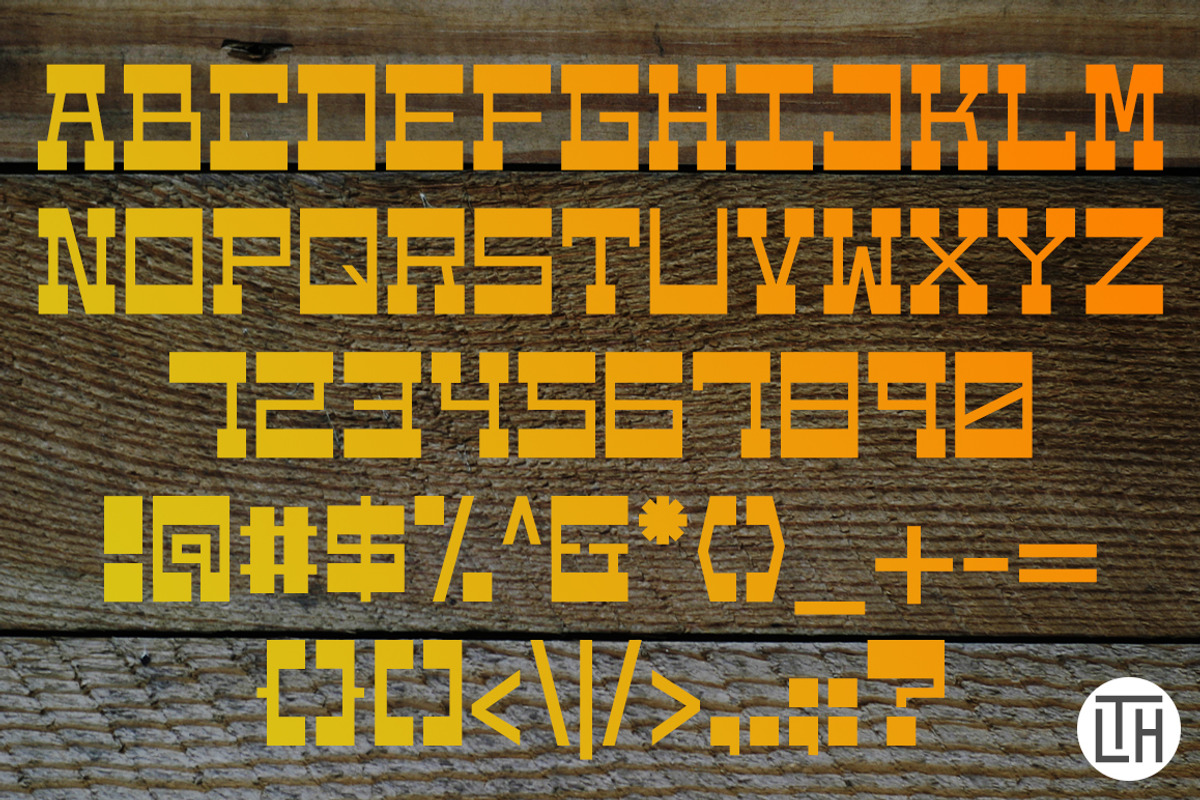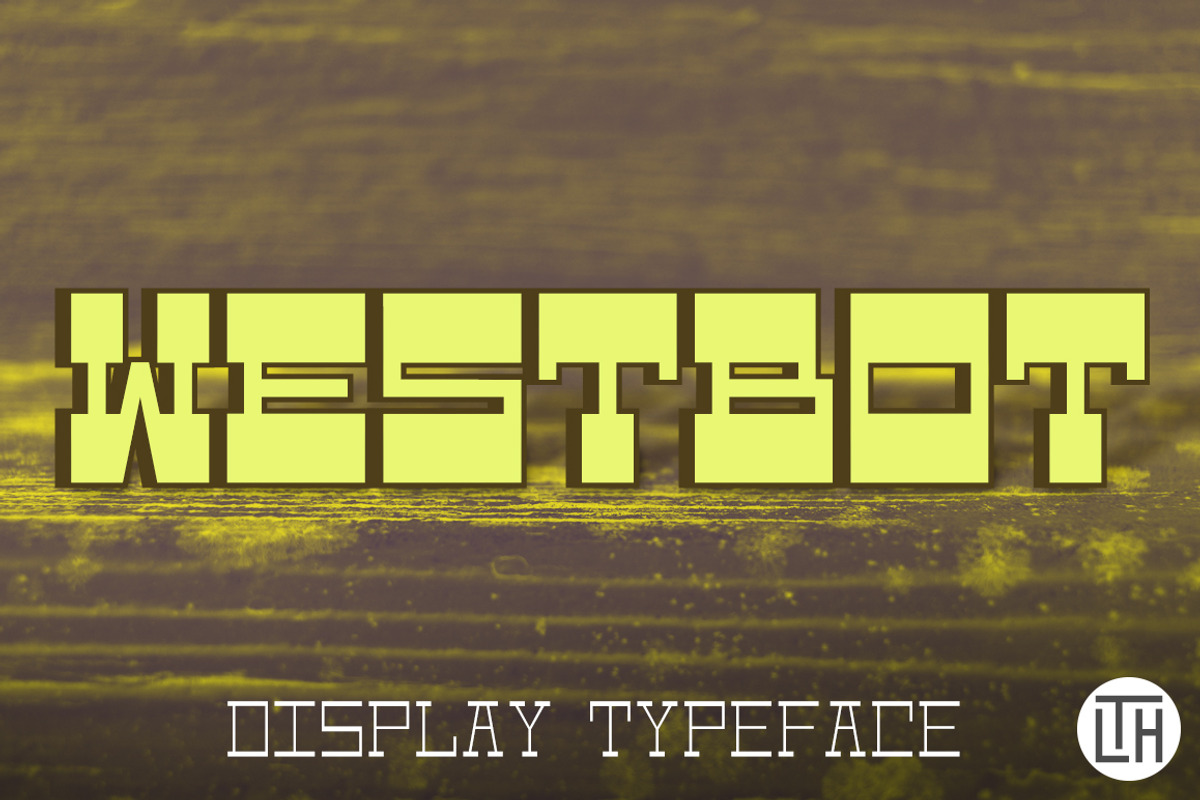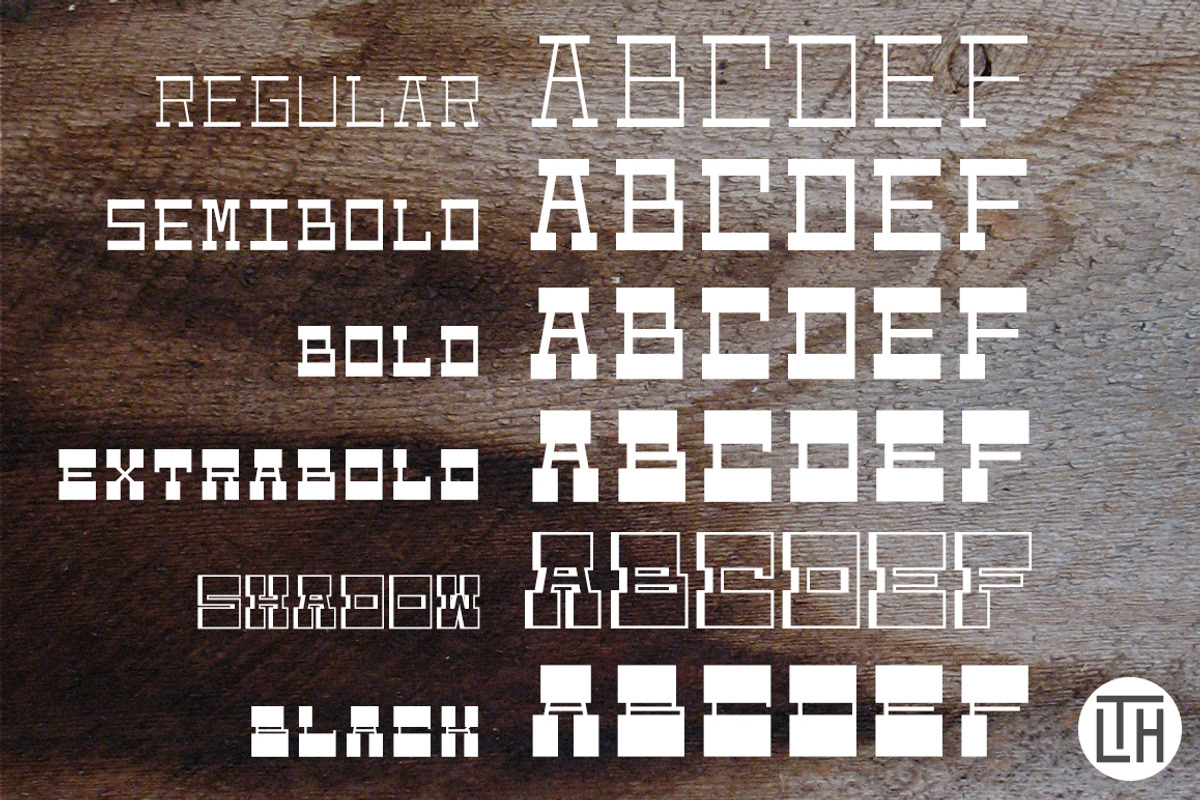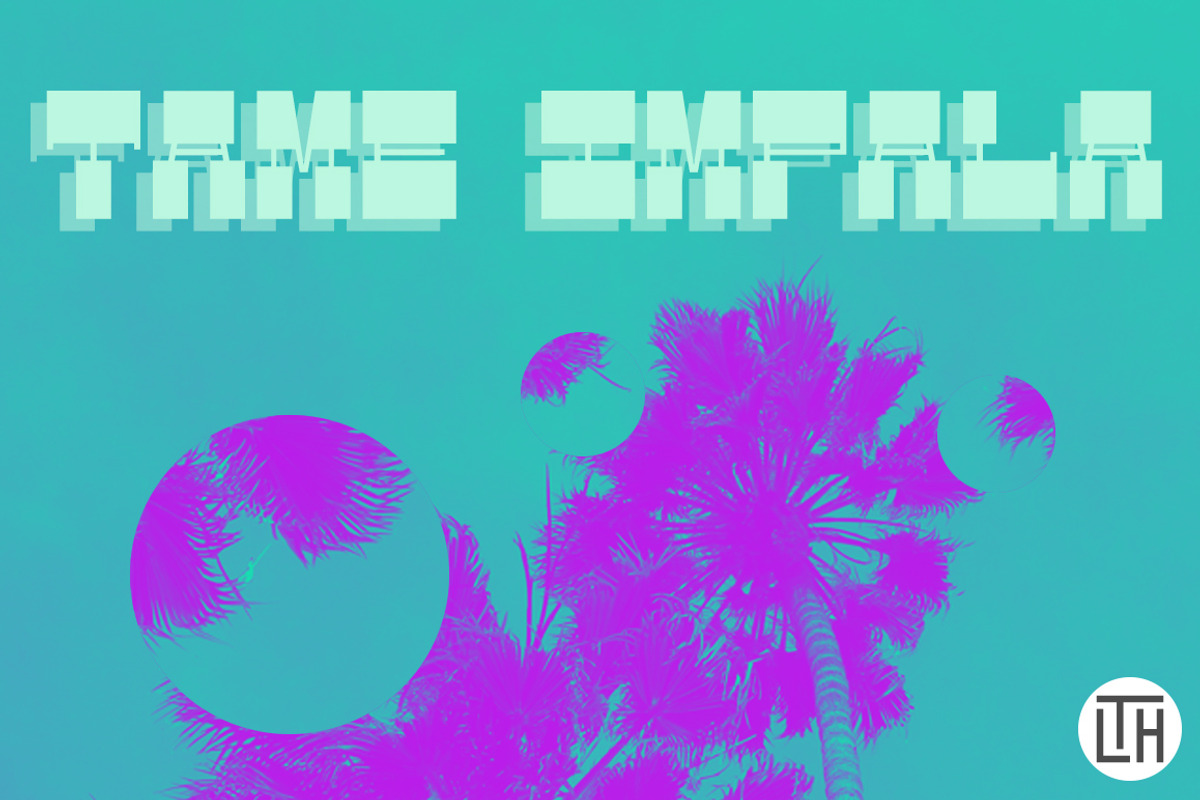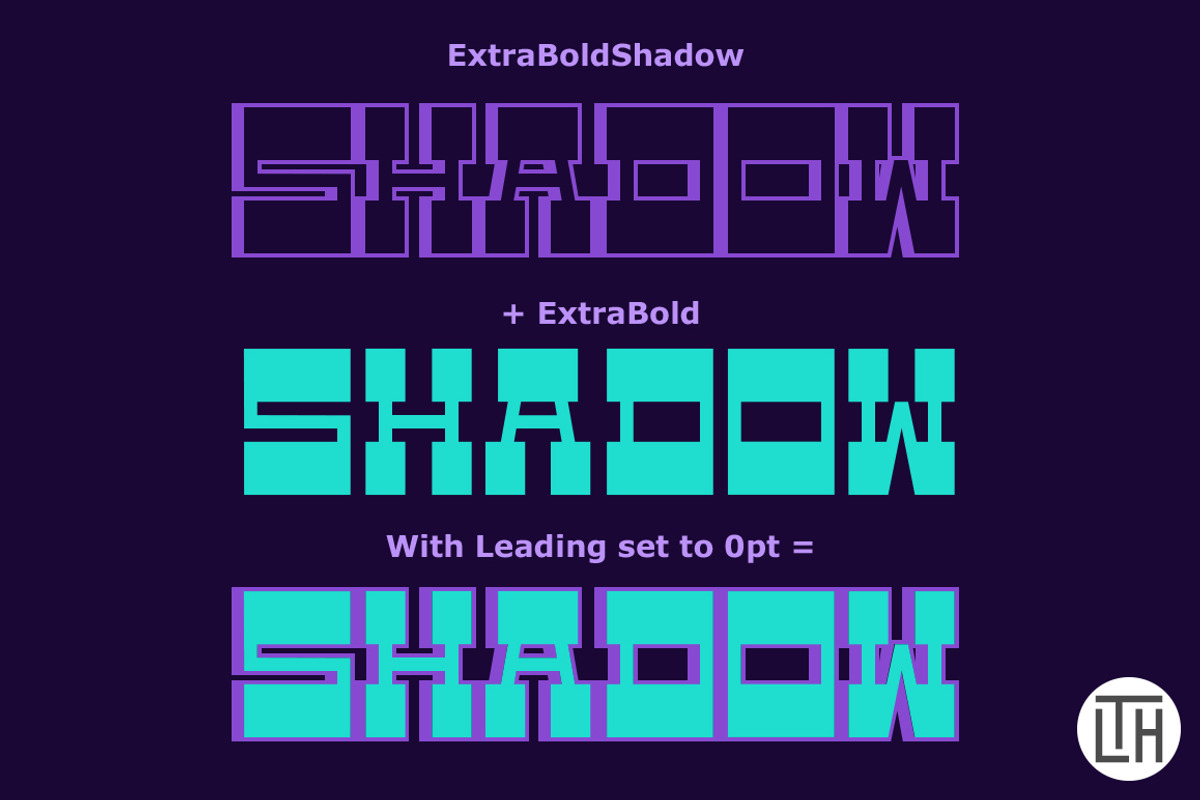
Westbot Typeface
Westbot is an all caps reverse stress typeface with 6 styles; Regular, SemiBold, Bold, ExtraBoldShadow, and Black! With the addition of the shadow style, you can create tons of different fun color combinations. All you need to do is set the same word of text on two lines, then make one word the ExtraBold style, and the other word ExtraBoldShadow. When the words are set to 0pt leading, you get the great shadow effect you can see in the second display photo.
Westbot only supports basic English punctuation as it's mainly meant for merchandise, titles, pull quotes, poster design, and other large format pieces. I suppose you could set a paragraph with it, but I wouldn't recommend it. ;)